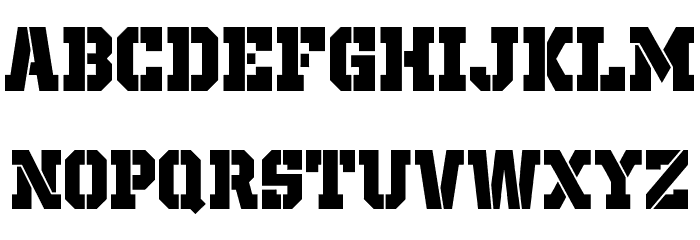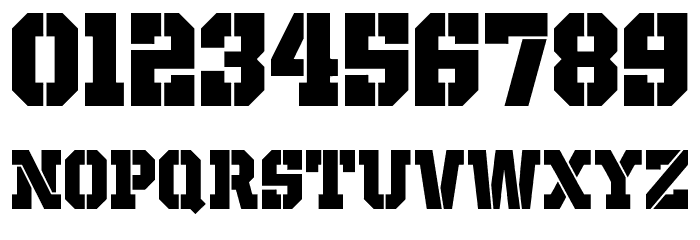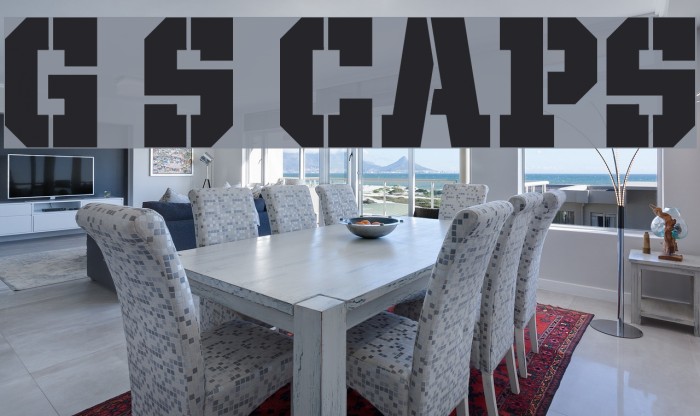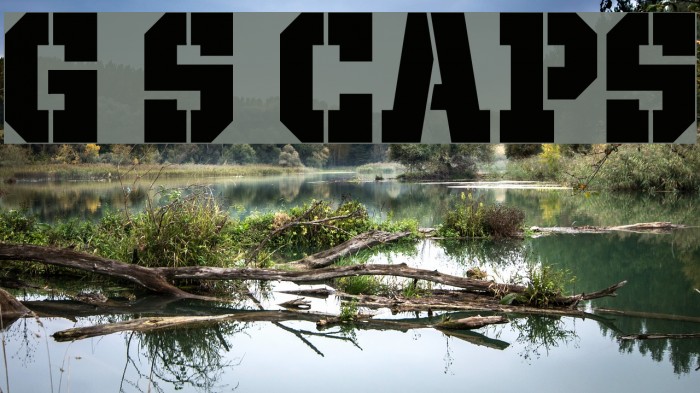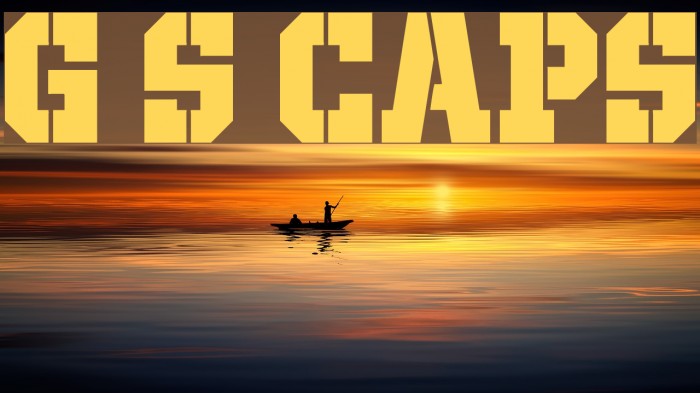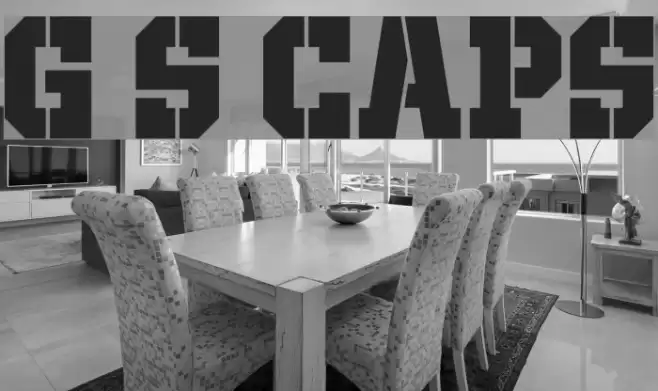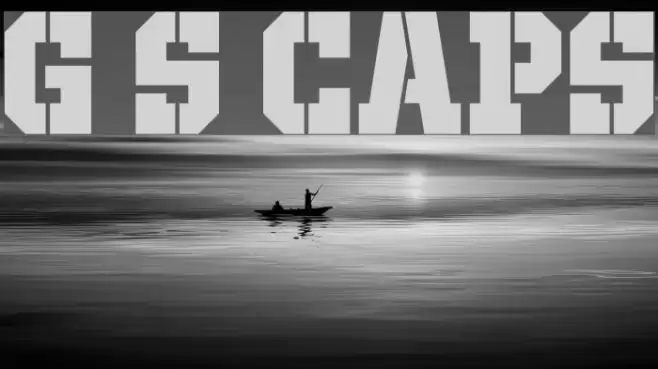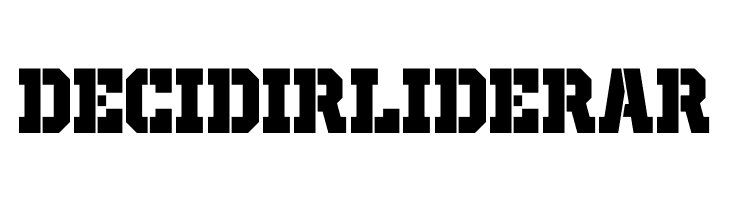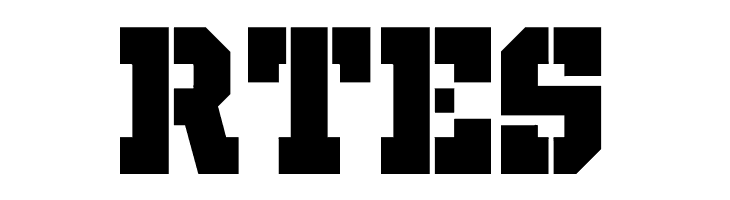
Giza Stencil CAPS Font
This font features a bold, stencil-like design with strong geometric shapes and a distinct industrial feel. Each character is crafted with precision, showcasing a combination of thick and thin strokes that create a striking visual impact. The uppercase letters are uniform in height, with sharp angles and clean lines that enhance readability. The numbers are equally bold, maintaining the same robust style as the letters. This font is ideal for projects that require a modern and edgy look, such as posters, signage, and branding materials. Its unique stencil cutouts add a layer of depth and interest, making it stand out in any design context.
A bold, geometric stencil font with strong industrial appeal.
- Proposed Projects: Ideal for posters, signage, branding, and any design needing a modern, edgy look.